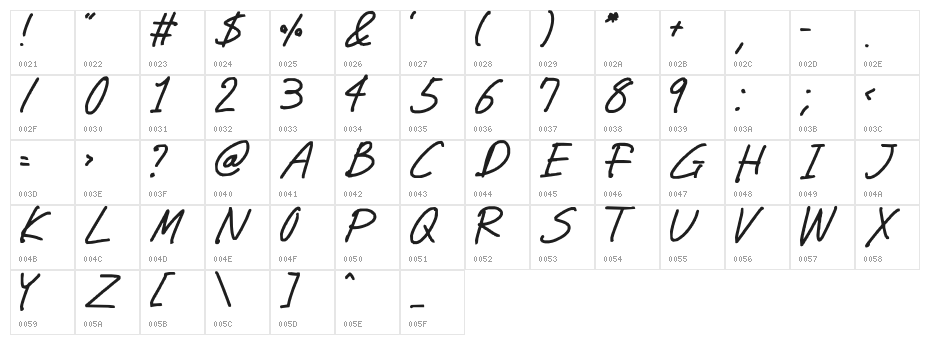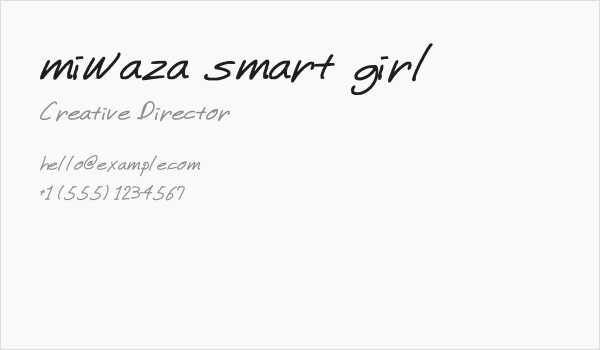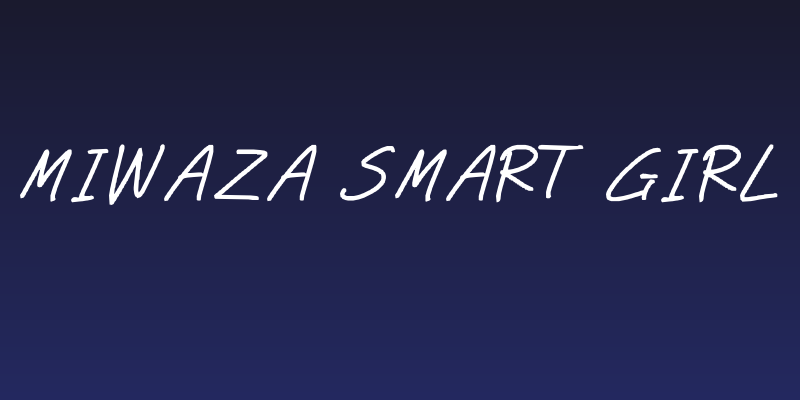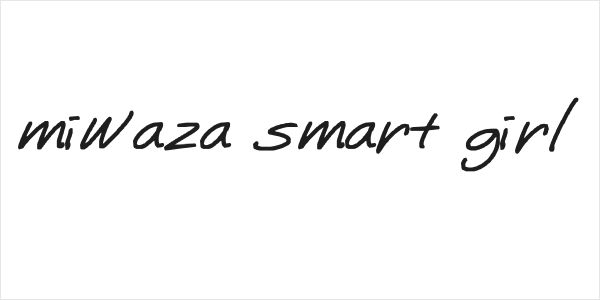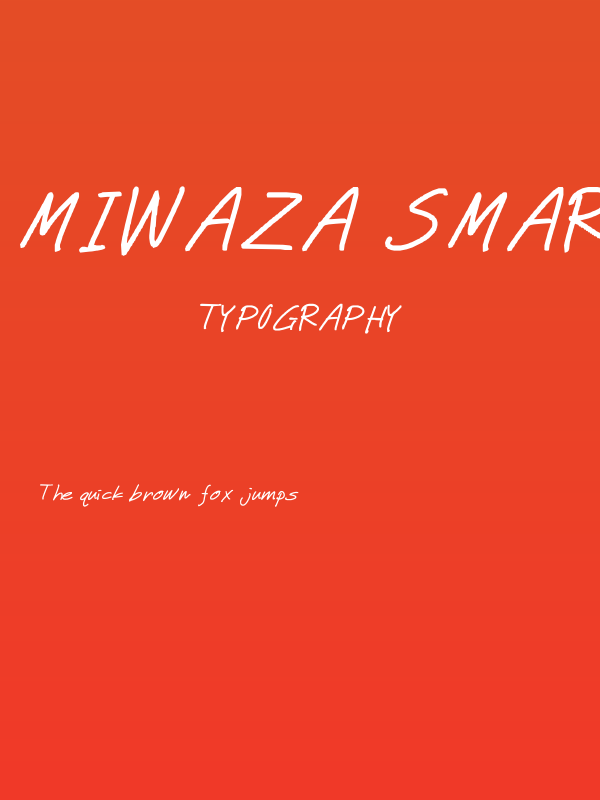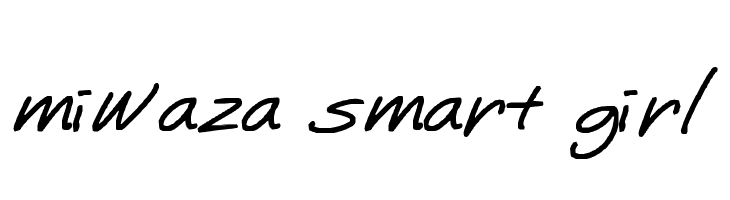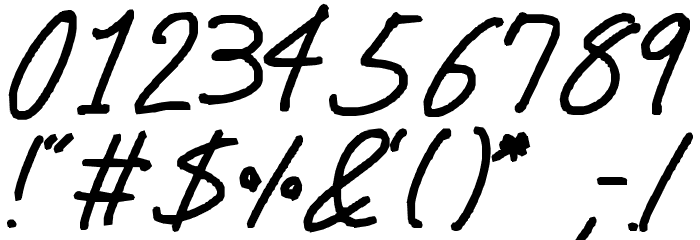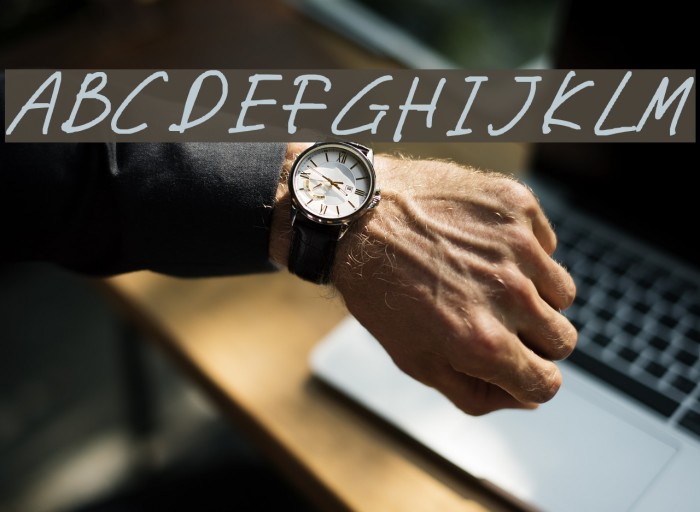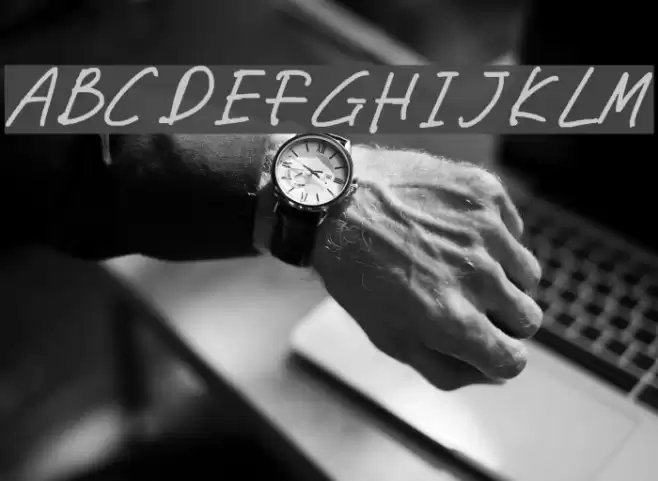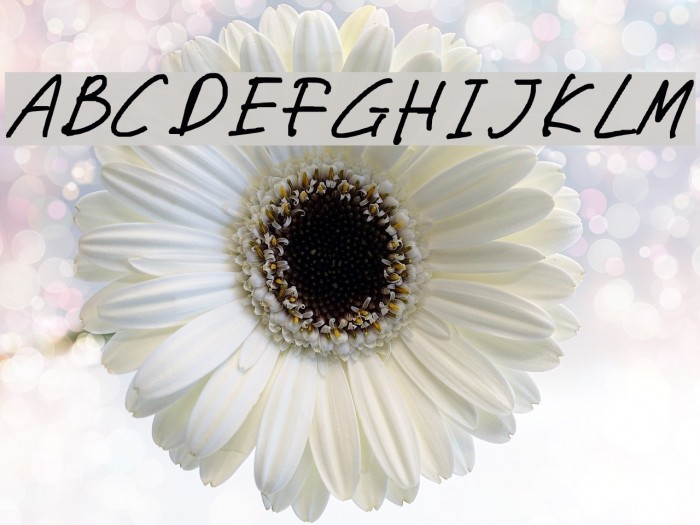
miwaza smart girl Font
miwaza smart girl Description
This font features a handwritten style with a casual and informal appearance. The characters are slightly slanted, giving them a dynamic and energetic feel. The strokes are smooth and fluid, resembling natural handwriting with a personal touch. The uppercase letters are bold and prominent, while the lowercase letters maintain a consistent flow. The numerals are clear and easy to read, matching the overall style of the alphabet. Special characters are included, maintaining the same handwritten aesthetic. This font is versatile and can be used to convey a friendly and approachable tone.
| Overall Style | Casual |
| Use Case | Headlines, Informal text, Personal notes |
| Proposed Projects | Ideal for personal notes, invitations, greeting cards, and casual branding projects. |